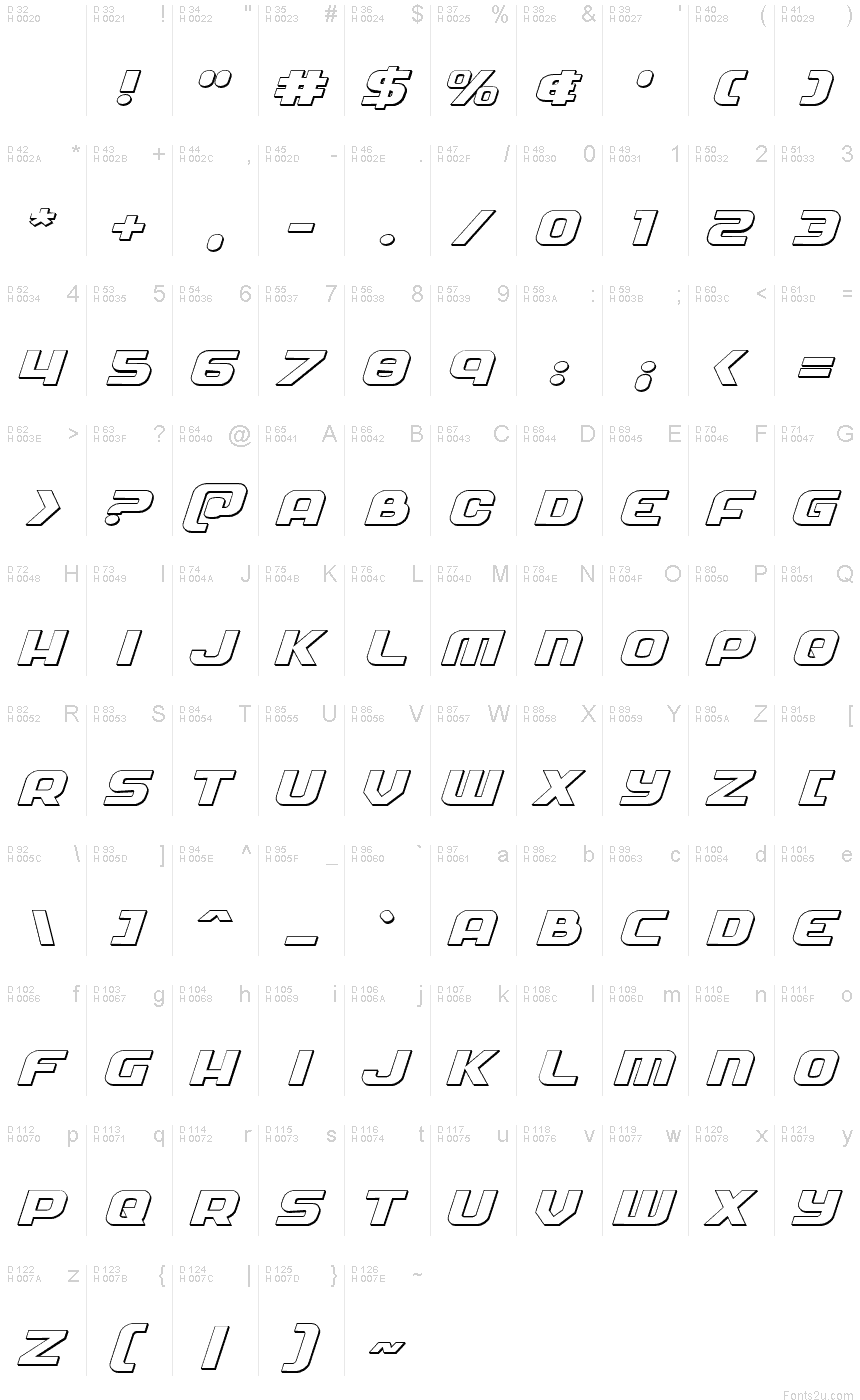
Soldier 3D Expanded Italic by Daniel Zadorozny of Iconian Fonts is a free extended italic sans serif with a crisp outlined construction. Its broad, forward-leaning capitals combine rounded outer curves, squared interior cuts, and tight joins for the streamlined look of custom motorsport lettering.
A racing team, athletic label, or performance-parts brand could use it to establish a fast, technical identity. It also suits event posters and game graphics centered on speed, machines, or competition. The slanted outline echoes stripes on racing liveries and sports uniforms.
Soldier 3D Expanded Italic